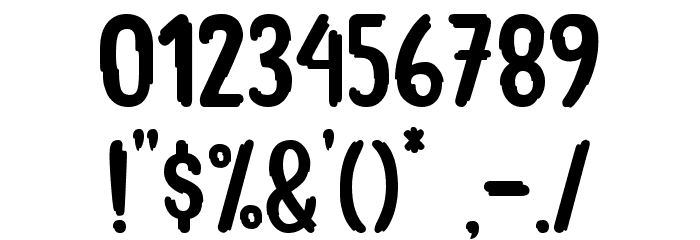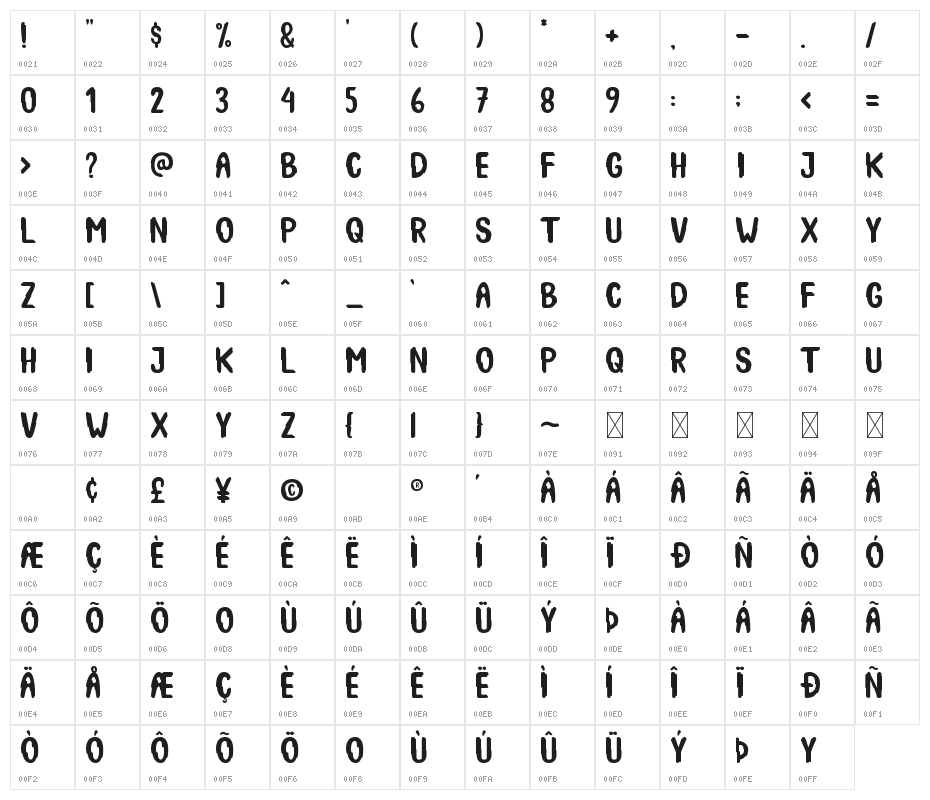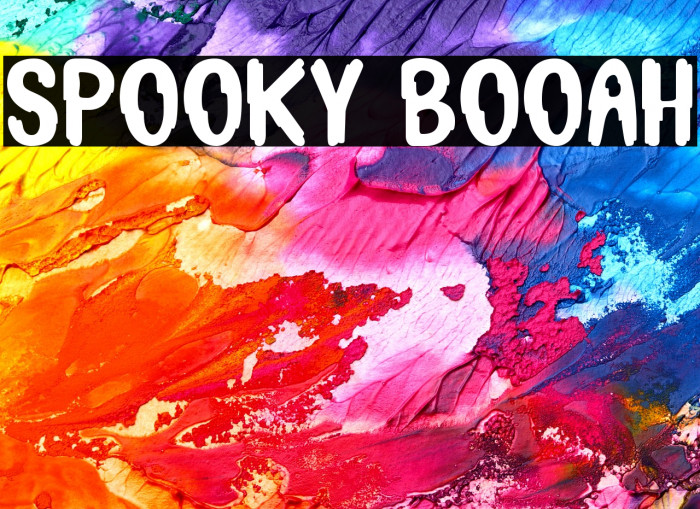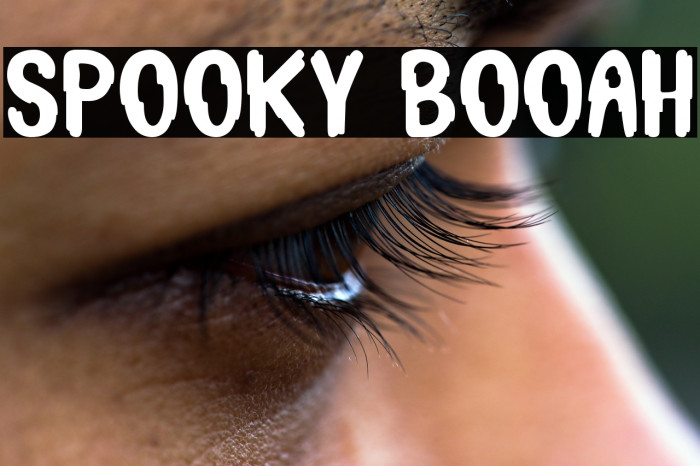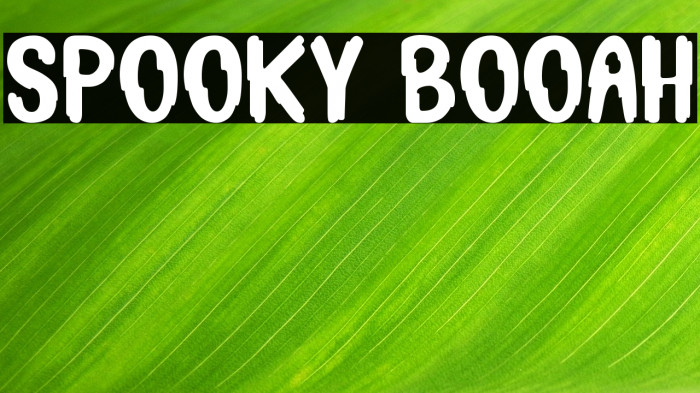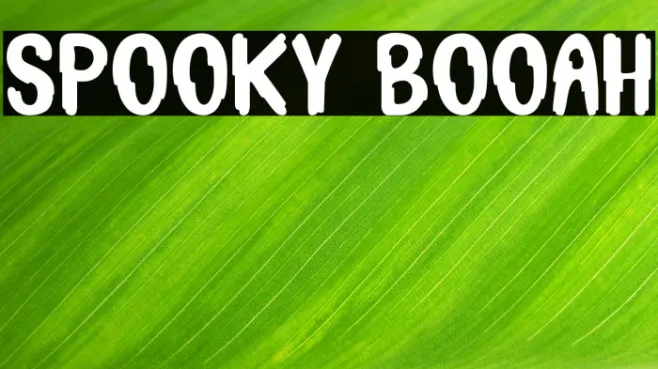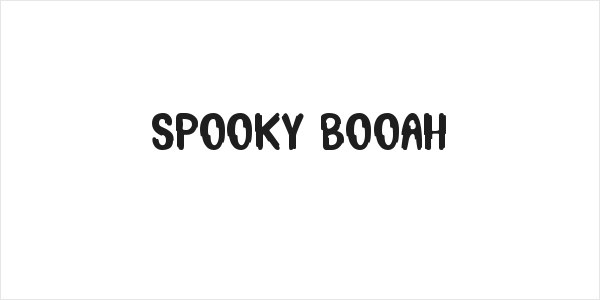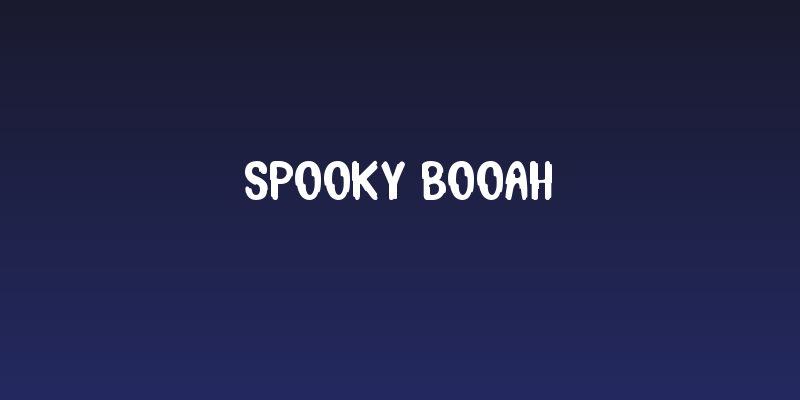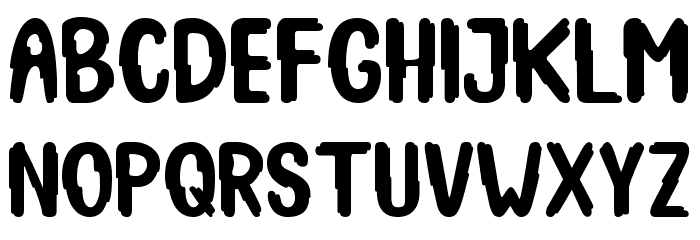
Spooky Booah Font
Spooky Booah Description
This font features a playful and slightly spooky design, characterized by its bold and rounded letterforms. The strokes are thick and consistent, giving it a strong presence. The letters have a whimsical, hand-drawn quality, with subtle irregularities that add to its charm. The overall appearance is both fun and slightly eerie, making it ideal for themes related to Halloween or anything requiring a touch of the supernatural. The numbers and special characters maintain the same playful style, ensuring consistency across all text elements.
| Proposed Projects | Ideal for Halloween-themed designs, children's book covers, party invitations, and playful branding. |